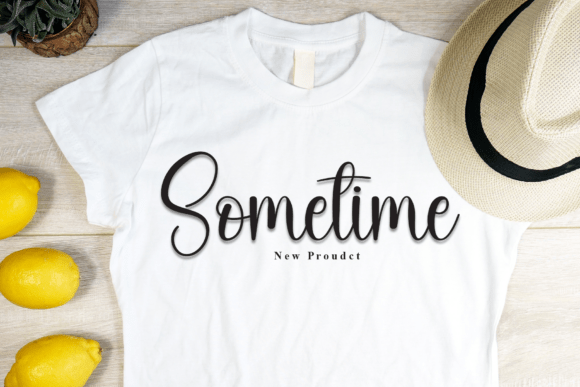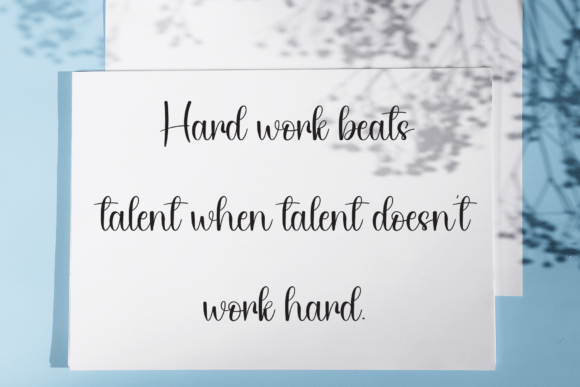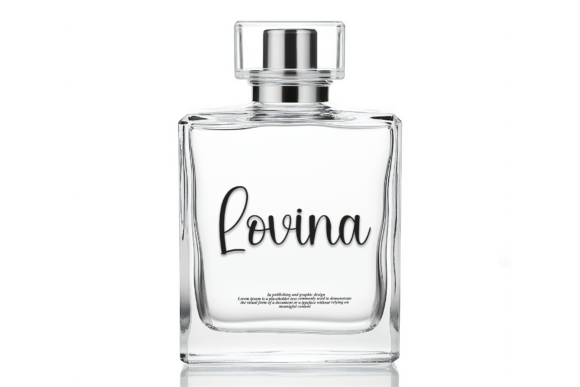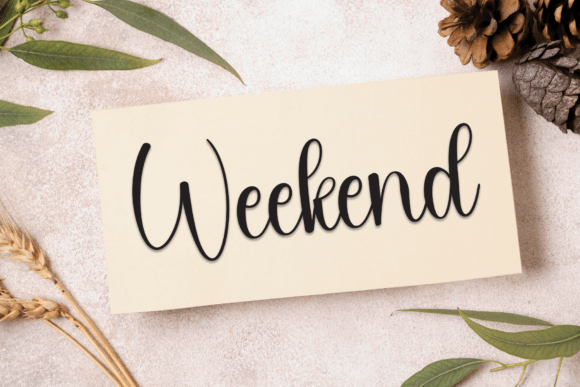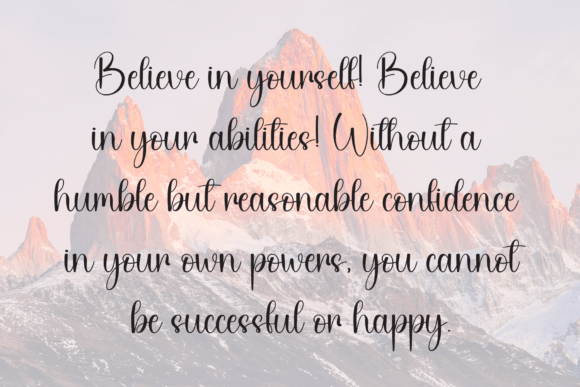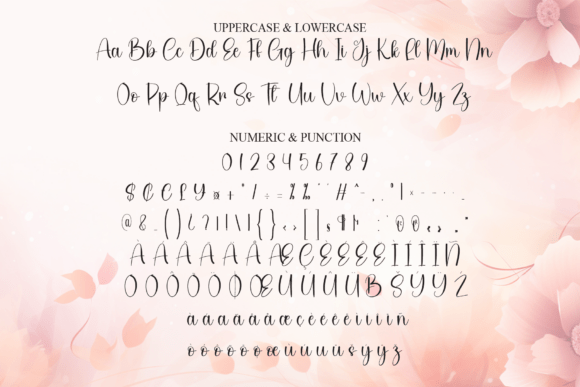
The Beauty of Typography: A Deep Dive into the Beauty Font
This stylish handwritten script font combines elegance with a modern flair, making it perfect for projects that require a touch of refinement. In this article, we’ll explore the Beauty Font in-depth, covering its features, how to use it, and some similar fonts you might love.
An Honest Review of Beauty Font
- 💫 Elegant, flowing strokes that add warmth and sophistication to any project
- ✅ Highly versatile and suitable for various design applications, from branding to social media
- 🎨 Organic curves that bring a personal, refined touch to your designs
- 🖌️ Effortless charm that’s perfect for making a statement
While the Beauty Font is an excellent choice for many projects, there are a few things to keep in mind:
- 🤔 Some users may find the font a bit too ornate for very minimalist designs
- ⚠️ Limited use of uppercase letters, which may require creative workarounds for certain projects
- Experiment with OpenType features, such as stylistic alternates, to add visual interest
- Take advantage of OpenType features, such as glyphs and ligatures, to add depth and character to your text
The Story Behind Beauty Font
The Beauty Font was designed with the intention of creating a typeface that would bring a touch of elegance and sophistication to any project. Inspired by the flowing scripts of the past, the designer aimed to create a font that would feel both modern and refined. The result is a beautiful, handwritten script font that’s perfect for a wide range of design applications.
| Font Name | Beauty Font |
| Author | Misterletter.co |
Q: What is the Beauty Font best suited for?
A: The Beauty Font is ideal for branding, invitations, social media, and any project that requires a touch of elegance and sophistication.
Q: Is the Beauty Font easy to read?
A: Yes, the Beauty Font is designed to be highly legible, making it perfect for body text and headlines.